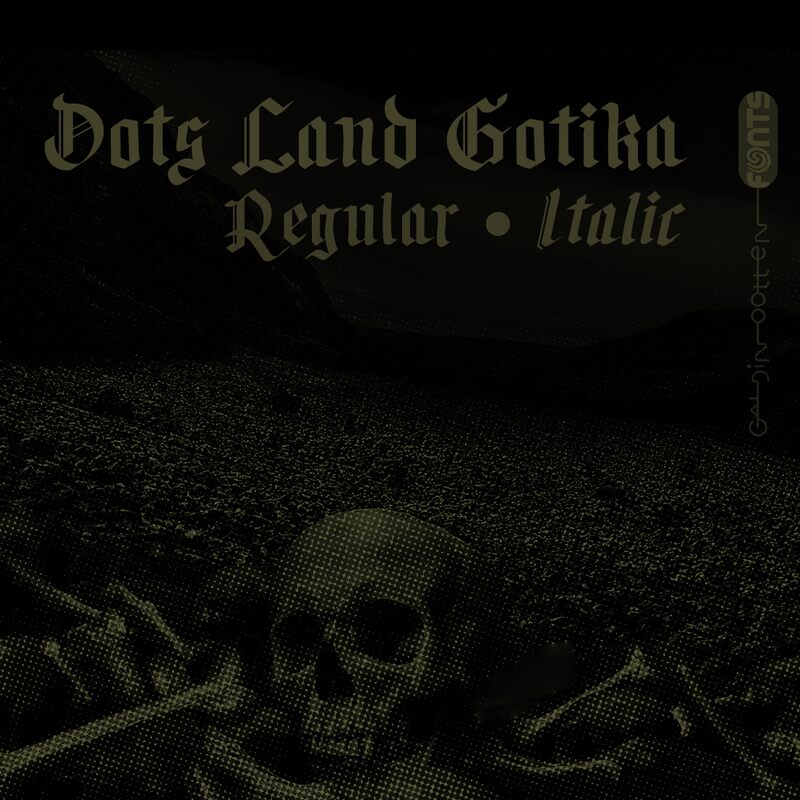
Dots Land Gotika Italic
Dots Land Gotika Italic font is a gothic typeface, yet another exquisite work by Galdino Otten Fonts. Its design can be described as melodramatic, ornamental, and historically influential with a particular focus on the Gothic style and medieval ambiance. As you explore its appearance closer, you’ll find many intricate detailing features that give it an extremely eye-catchy look suitable for the right project. Traditional appeal makes it even more respectable and interesting.
Considering unique use cases for this free font would mean implementing its letters in a logo design or within tattoo drawings. Other options are book covers and illustrations (especially those with astrology or magic), greeting cards, posters, event invitations, notebook/binder covers, advertisements or announcements of shows taking place at museums or theatres etc.